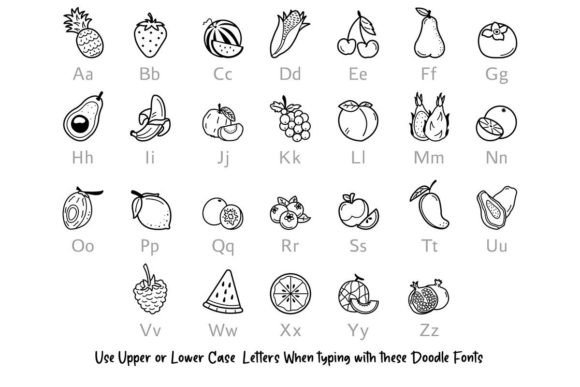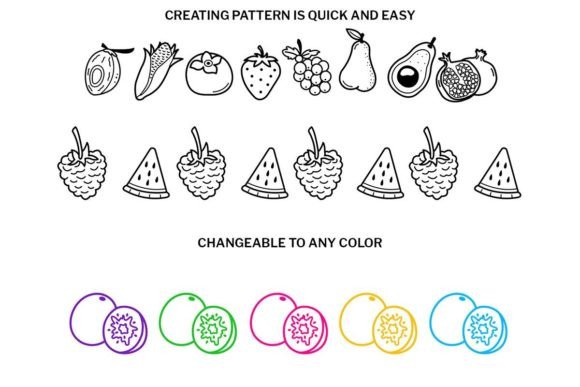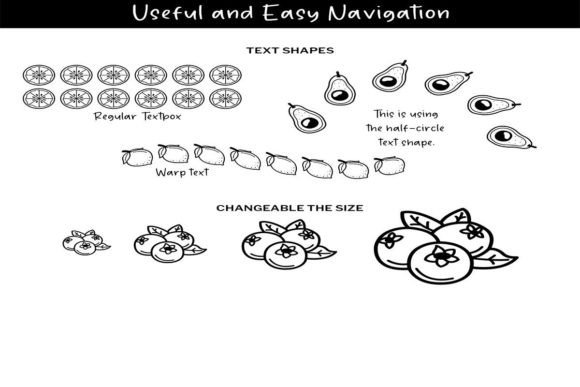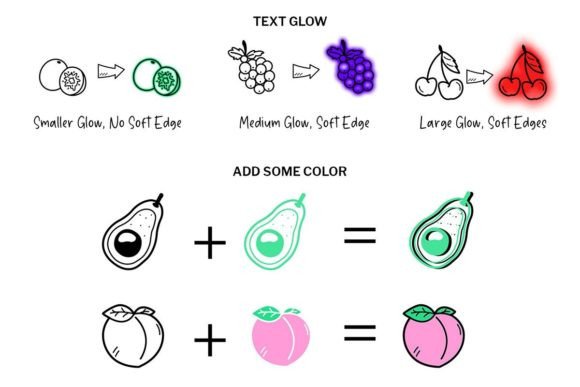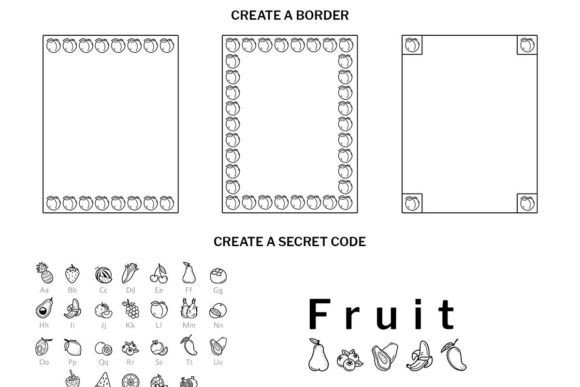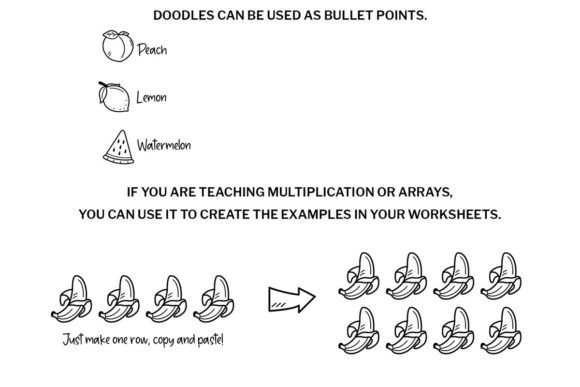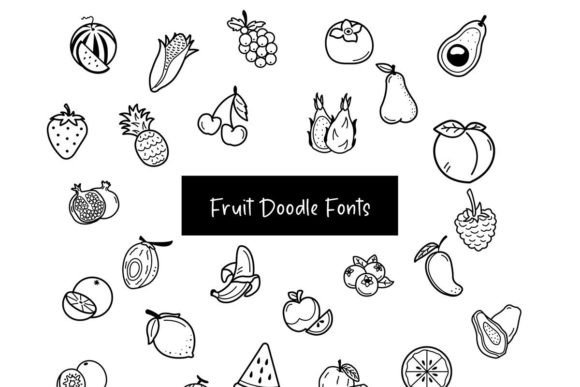
Fruit Doodle Font
About Fruit Doodle Font
The Fruit Doodle font is a delightful and charming dingbat font that brings the vibrant and juicy world of fruits to your creative projects. With its collection of cute doodles featuring various fruits like apples, oranges, strawberries, and more, this font is perfect for adding a touch of fruity fun to your designs.
The versatility of the Fruit Doodle font allows it to be used in a wide range of applications. Whether you’re working on craft projects, designing fruit-themed graphics, creating planner layouts, or developing activity books, this font is sure to add a playful and colorful element to your work.
In craft projects, the Fruit Doodle font can be used to create handmade cards, gift tags, or party decorations with a fruity theme. The adorable fruit doodles can serve as decorative elements, borders, or focal points, adding a cheerful and lively touch to your crafts.
For graphic designs, the Fruit Doodle font can be used to design logos, labels, or packaging for food and beverage products. The fruit illustrations can create a fresh and enticing visual identity, making your designs stand out and appeal to the senses.
In planners and diaries, the Fruit Doodle font can be used to decorate pages, mark important dates or events with fruit icons, or create sections dedicated to healthy eating or meal planning. The playful doodles can make planning and organizing more enjoyable and visually appealing.
Activity books and coloring pages for kids can also benefit from the Fruit Doodle font. The fruit doodles can be used as coloring prompts, activity illustrations, or decorative elements, making learning about fruits and healthy eating engaging and fun for children.
The possibilities are endless when it comes to incorporating the Fruit Doodle font into your creative projects. Its cute and vibrant fruit doodles can bring a sense of freshness, joy, and healthy living to any design you create. Let your imagination run wild and use the Fruit Doodle font in your crafts, designs, planners, diaries, activity books, or any other project that celebrates the sweetness of fruits.
In summary, the Fruit Doodle font is a fun and cute dingbat font that adds a touch of fruity delight to your creative endeavors. Its versatility makes it suitable for a wide range of craft projects, designs, planners, diaries, activity books, and more. Embrace the colorful world of fruits and let the Fruit Doodle font infuse your creations with its playful and vibrant doodles. Get ready to create designs that are as sweet and refreshing as your favorite fruits!